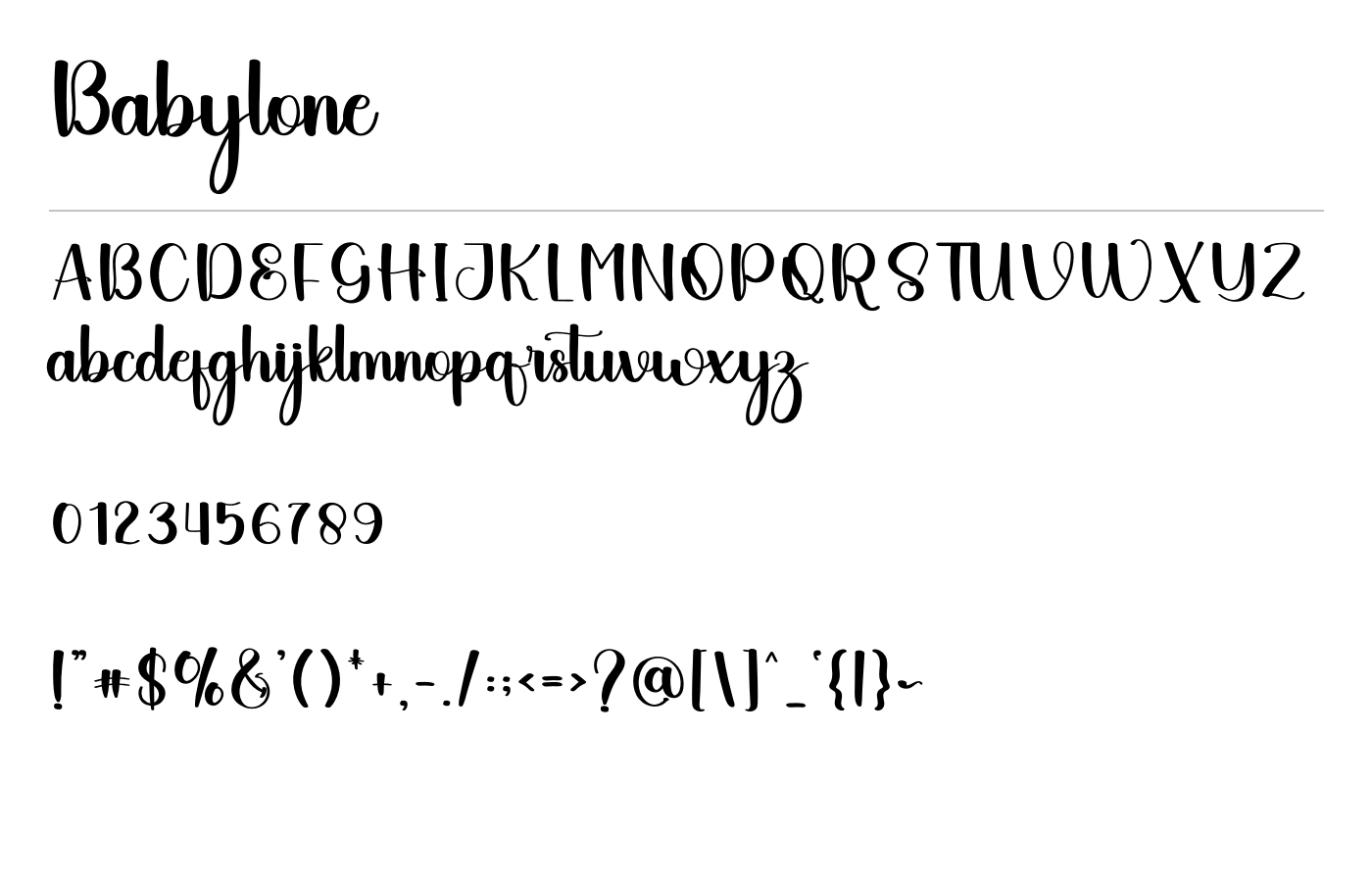
Babylone is a charming script font with a bold, playful style featuring smooth, rounded strokes and flowing connections that create an inviting, hand-lettered feel. Its upright letterforms with moderate contrast and whimsical details make it perfect for branding, invitations, and creative headlines where a friendly and approachable personality is desired. This font works well in designs that aim to evoke warmth and creativity, adding a lively touch to fashion, lifestyle, and craft-oriented projects.
Babylone Font
About Babylone Font